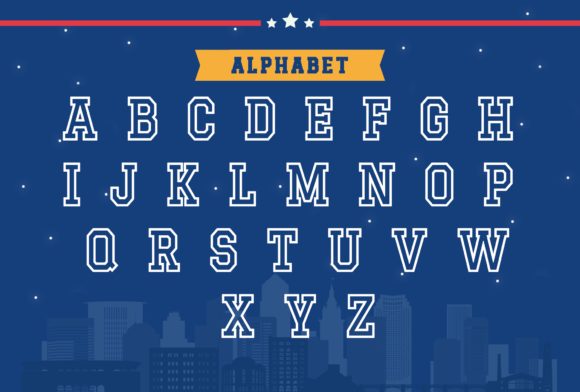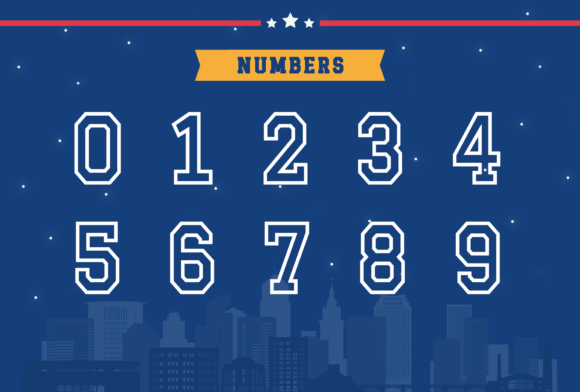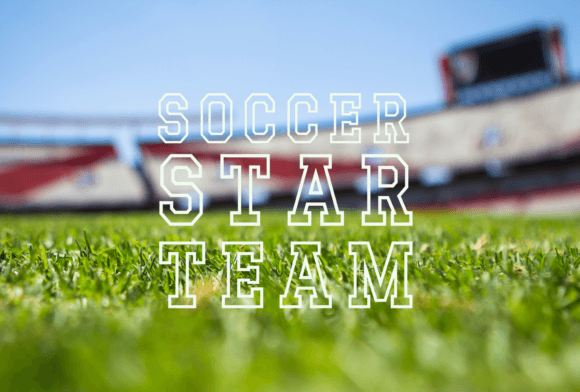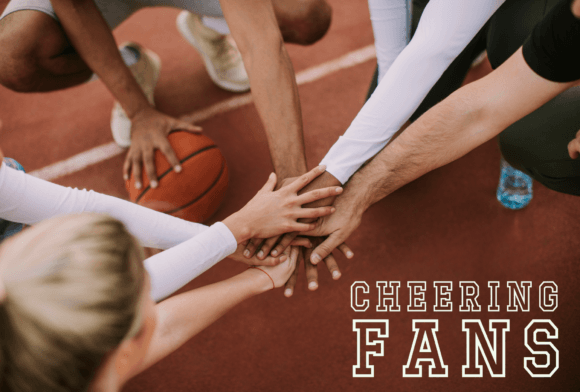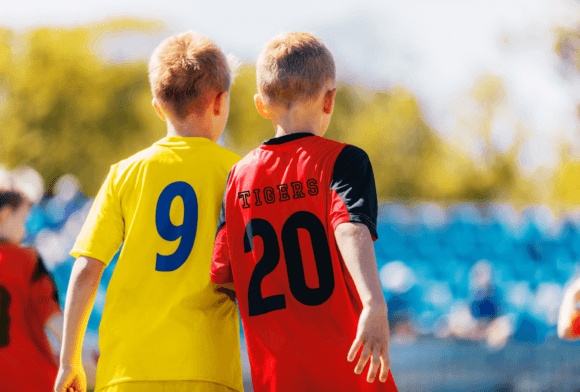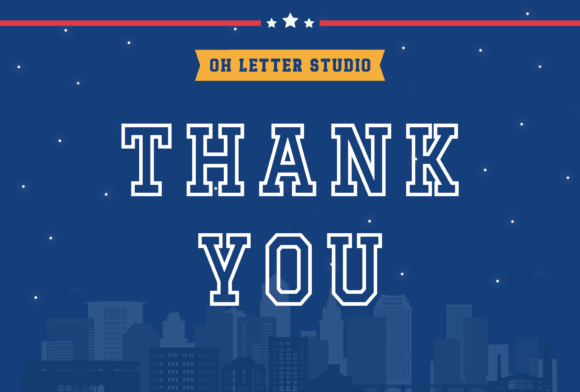
Introducing College Font: The Ultimate Sports Display Font
Are you looking for a font that captures the energy and excitement of sports? Look no further than College Font, a bold and dynamic display font that’s perfect for conveying power, athleticism, and movement. In this article, we’ll take a closer look at the features and benefits of College Font, and explore how it can elevate your designs to the next level.
A Font that Embodies the Spirit of Sports
College Font is a genuine sports display font that’s designed to capture the essence of sports. With its strong and translucent look, this font is perfect for creating eye-catching headlines, titles, and slogans that demand attention. The thick lines and sharp edges of the letterforms convey a sense of power and athleticism, making it an ideal choice for sports teams, fitness brands, and outdoor enthusiasts.
Key Features of College Font
- Bold and Dynamic Design: College Font features a bold and dynamic design that’s perfect for creating eye-catching headlines and titles.
- Strong and Translucent Look: The font’s strong and translucent look gives it a unique and modern feel that’s sure to grab attention.
- Thick Lines and Sharp Edges: The thick lines and sharp edges of the letterforms convey power and athleticism, making it perfect for sports-related designs.
- Carefully Crafted Letterforms: The letterforms are carefully crafted to create a sense of motion and speed, making this font a great choice for conveying movement and action.
College Font is perfect for designers and crafters who want to create stunning sports-themed designs. Whether you’re working on a logo, brochure, or website, this font is sure to add a touch of energy and excitement to your project. With its versatility and flexibility, College Font can be used for a wide range of design projects, from sports teams and fitness brands to outdoor enthusiasts and action sports.
Benefits of Using College Font
- Instant Recognition: College Font is designed to grab attention and create instant recognition.
- Professional Look and Feel: The font’s bold and dynamic design gives it a professional look and feel that’s perfect for sports-related designs.
- Flexibility and Versatility: College Font can be used for a wide range of design projects, from logos and brochures to websites and social media graphics.
- Easy to Read: Despite its bold and dynamic design, College Font is easy to read, even at small font sizes.
In conclusion, College Font is a bold and dynamic sports display font that’s perfect for designers and crafters who want to create stunning sports-themed designs. With its strong and translucent look, thick lines and sharp edges, and carefully crafted letterforms, this font is sure to capture the energy and excitement of sports. Whether you’re working on a logo, brochure, or website, College Font is a great choice for conveying power, athleticism, and movement.